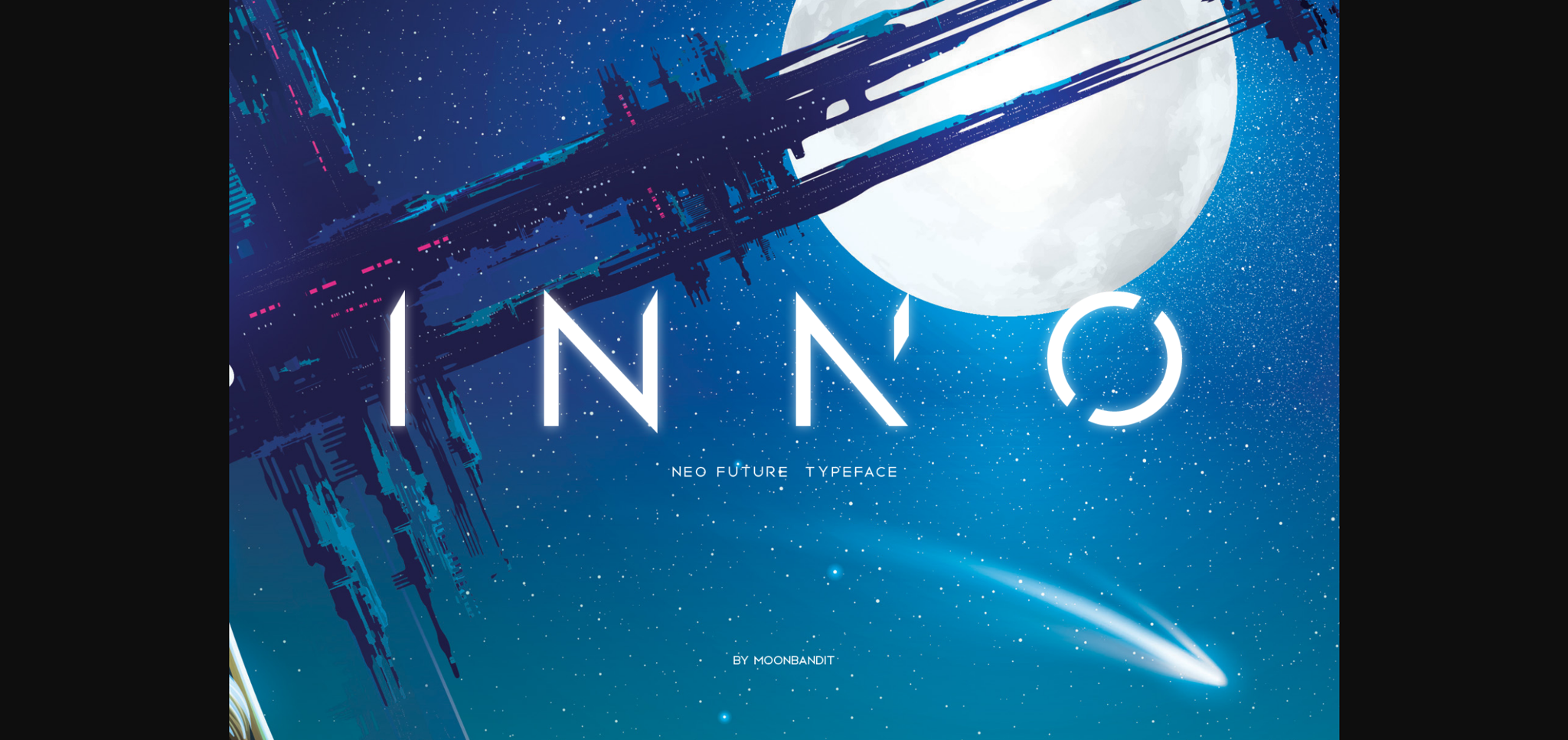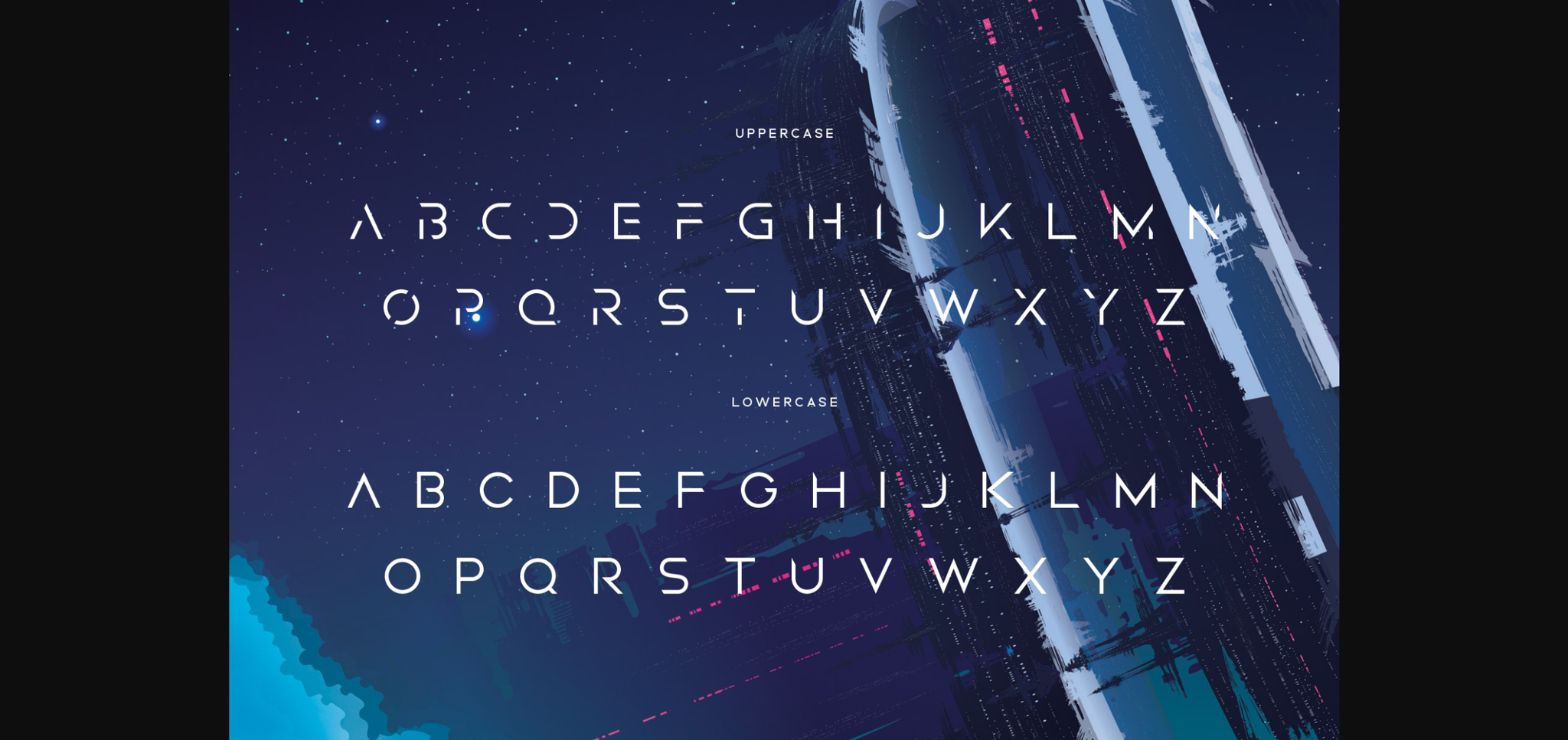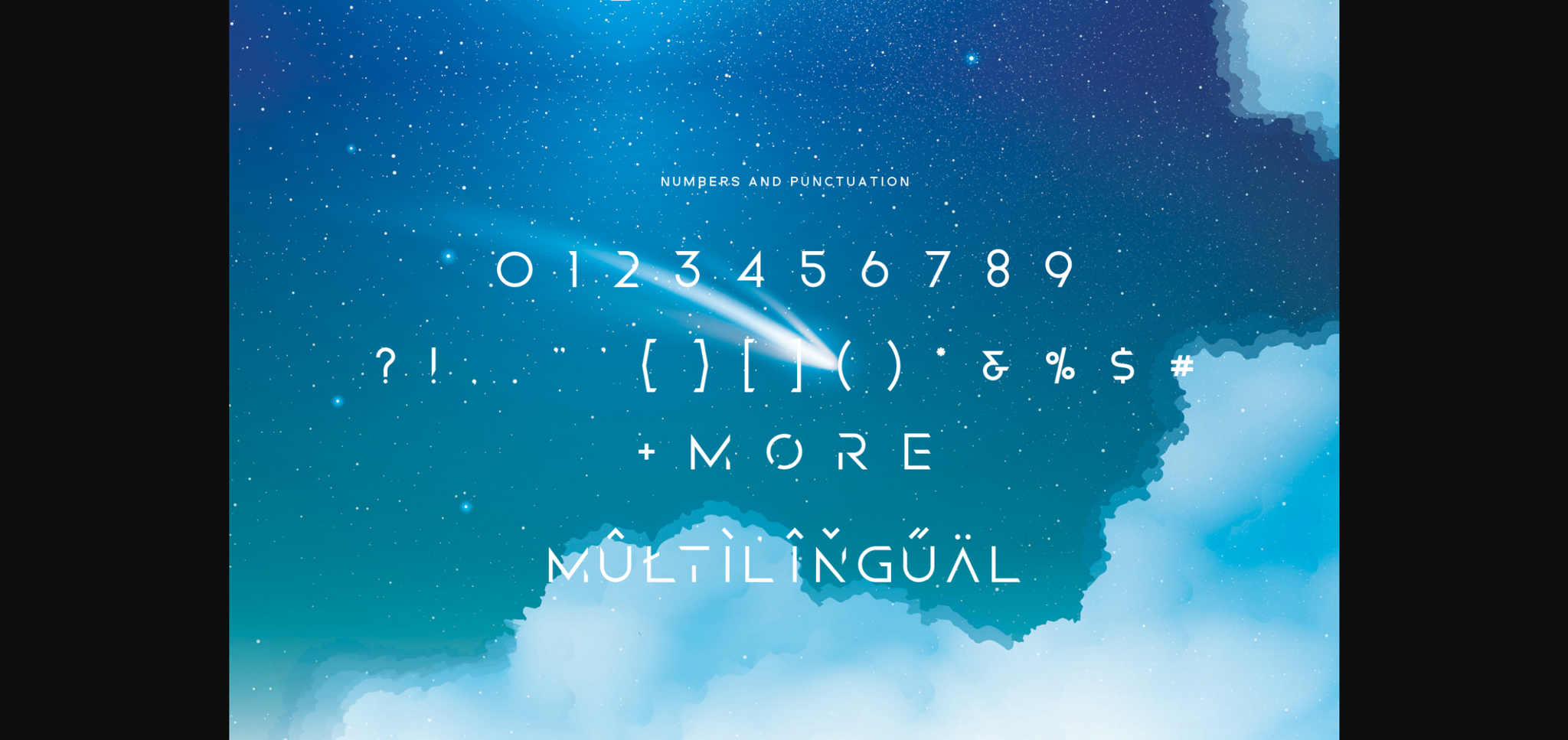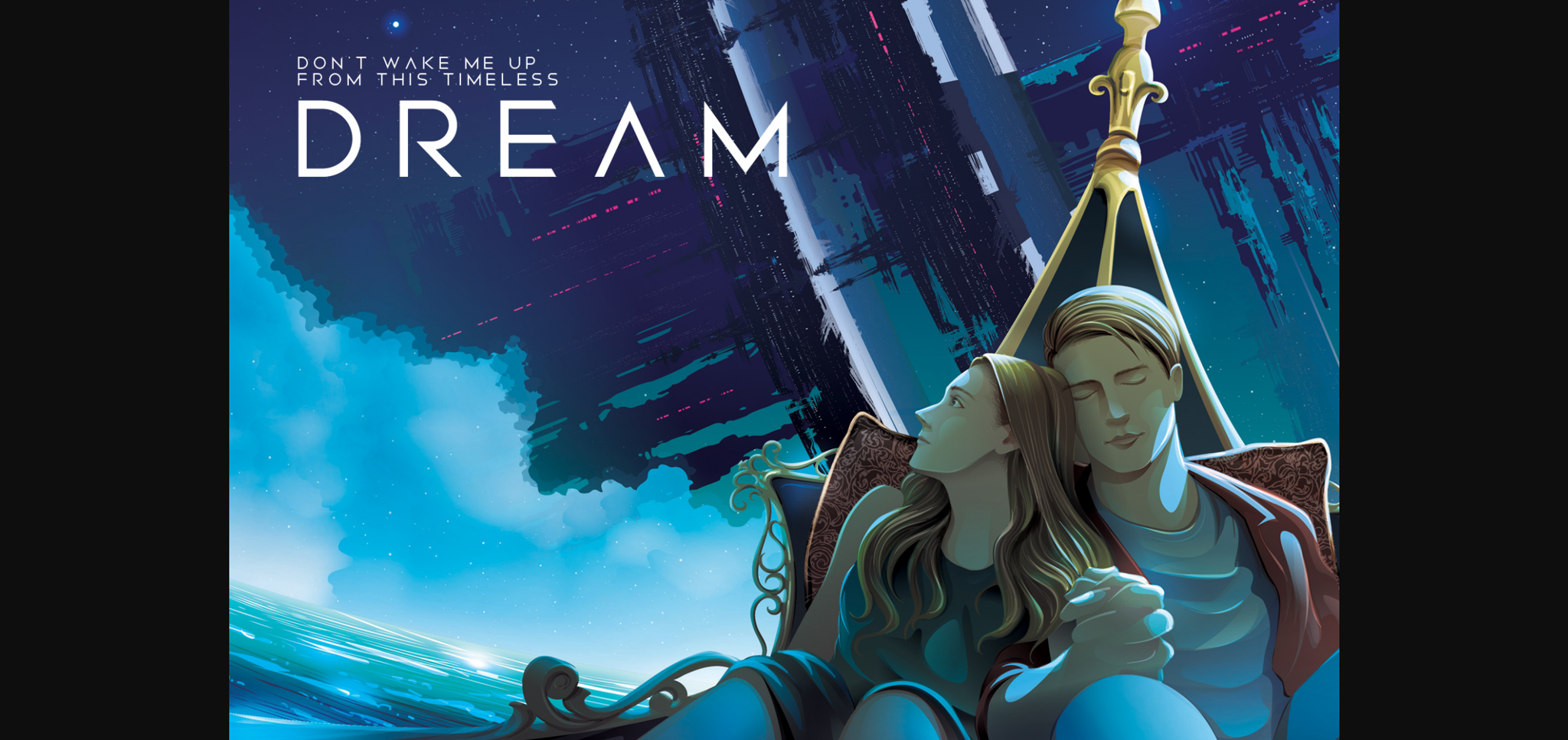
About Inno Font
Inno is a futuristic sans serif font carefully created with a touch of elegance. Whether you’re looking for fonts for Instagram or calligraphy scripts for DIY projects, this font will turn any creative idea into a true piece of art!